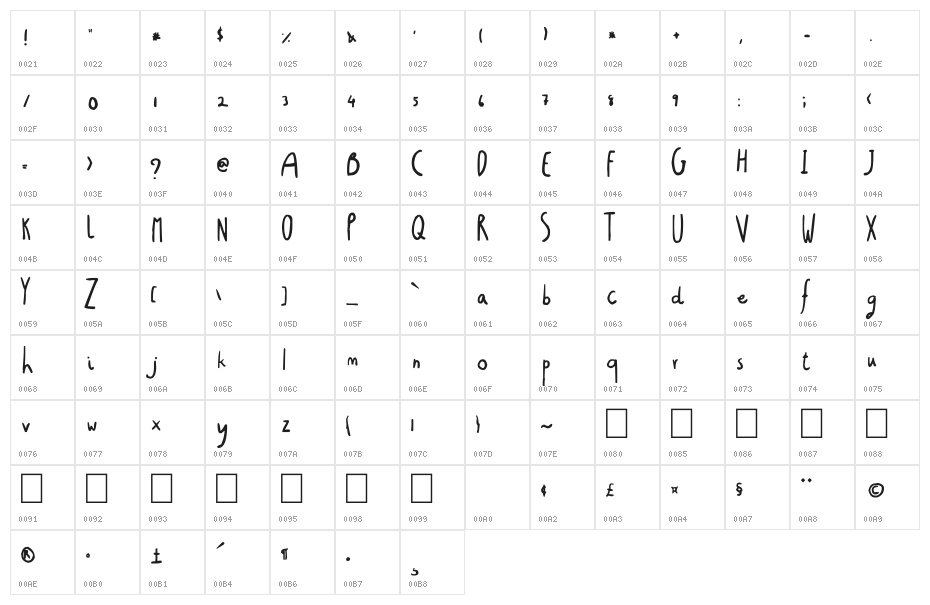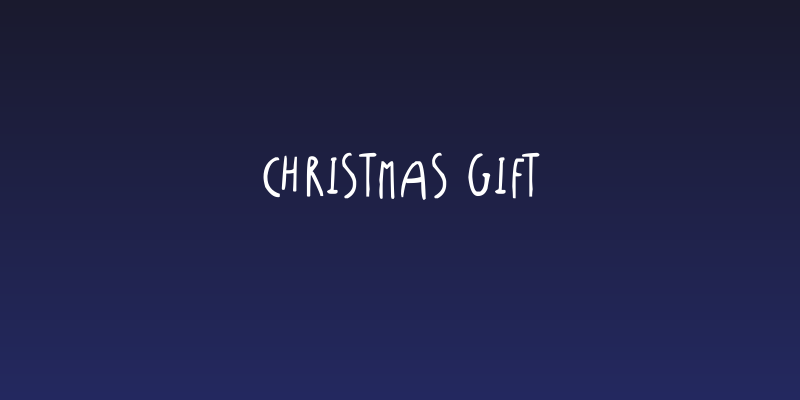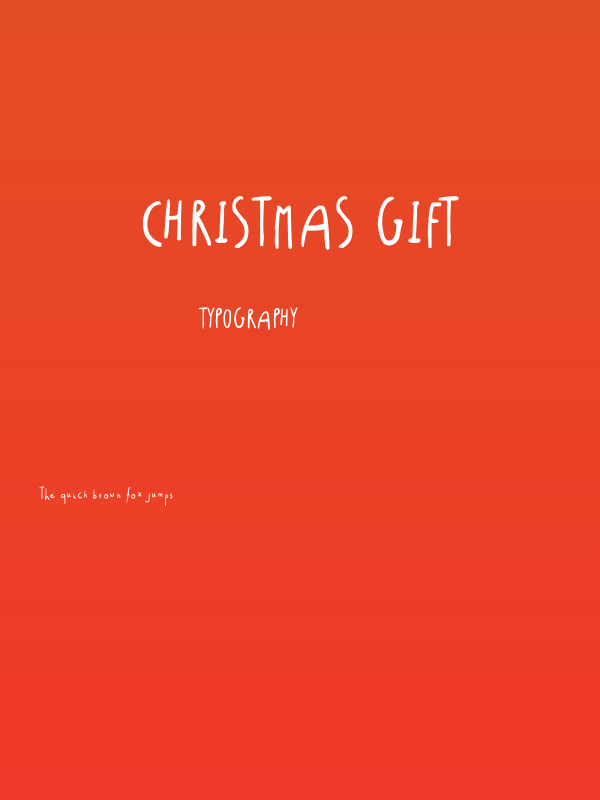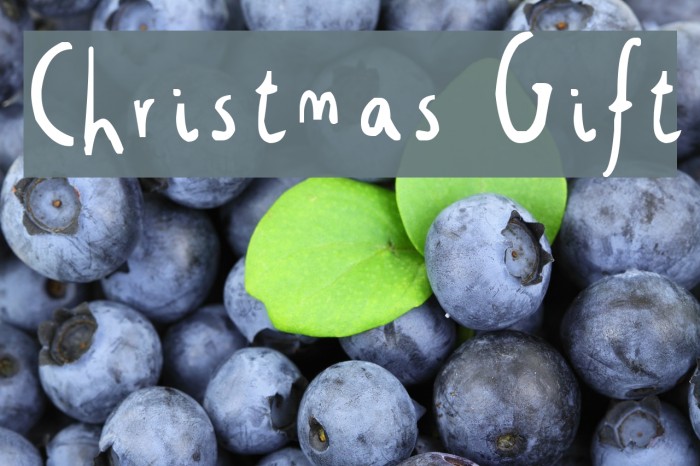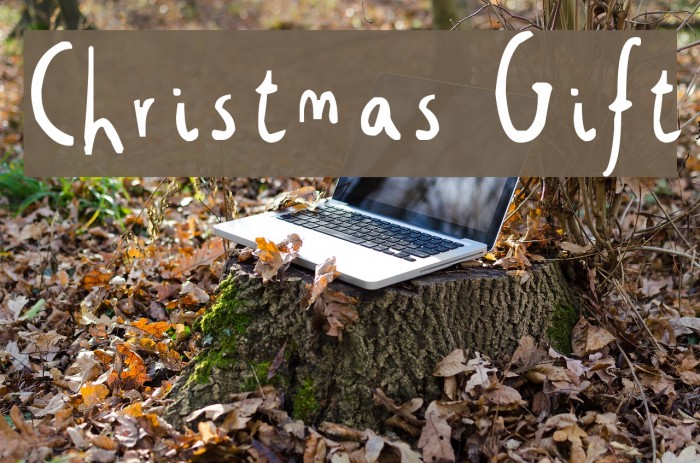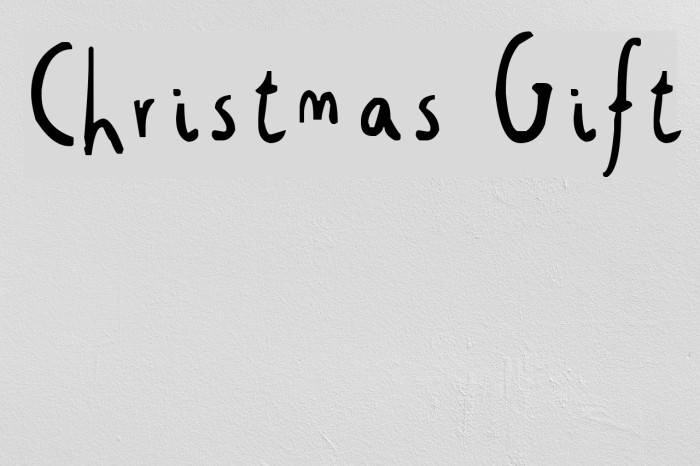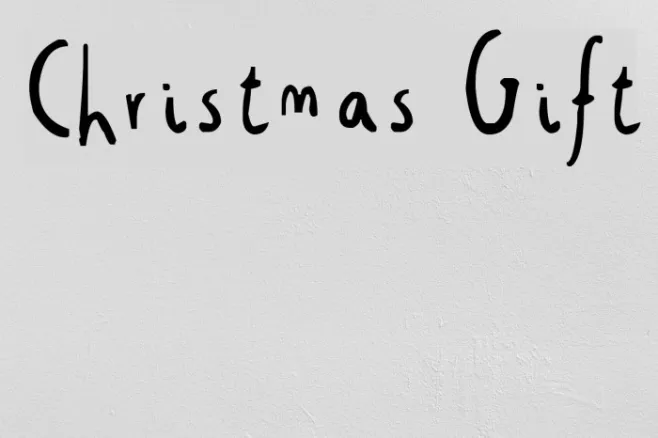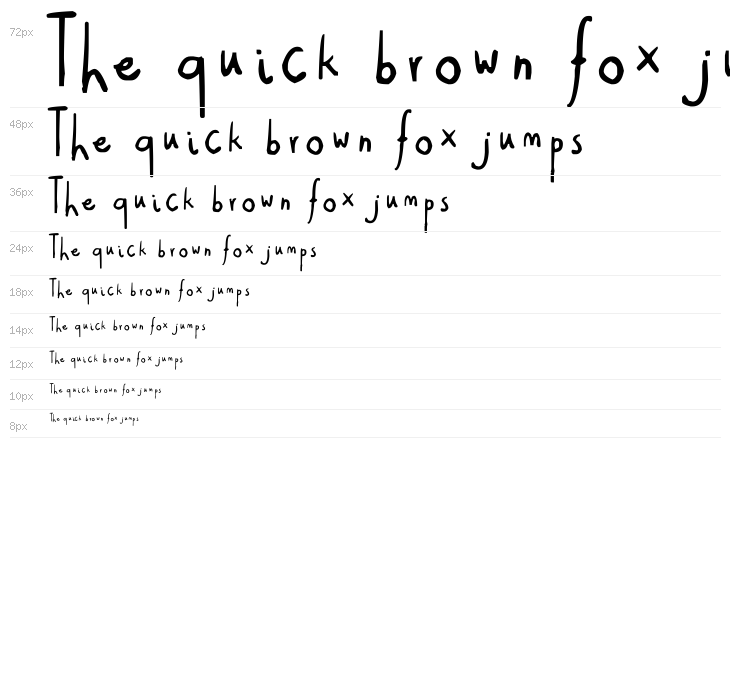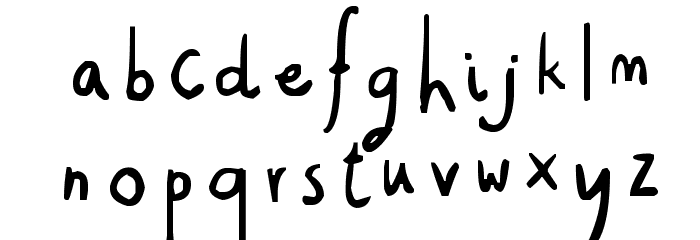
Christmas Gift Font
Christmas Gift Description
This font features a playful and whimsical style, characterized by its irregular and slightly uneven strokes that give it a hand-drawn appearance. The uppercase letters are tall and narrow, while the lowercase letters maintain a consistent height, adding to the casual and informal feel. The numbers and special characters are designed to match the quirky style of the alphabet, making it suitable for creative and fun projects. The overall look is reminiscent of a handwritten note, perfect for adding a personal touch to any design.
| Overall Style | Playful, Casual |
| Proposed Projects | Ideal for greeting cards, children's book illustrations, playful branding, and casual invitations. |